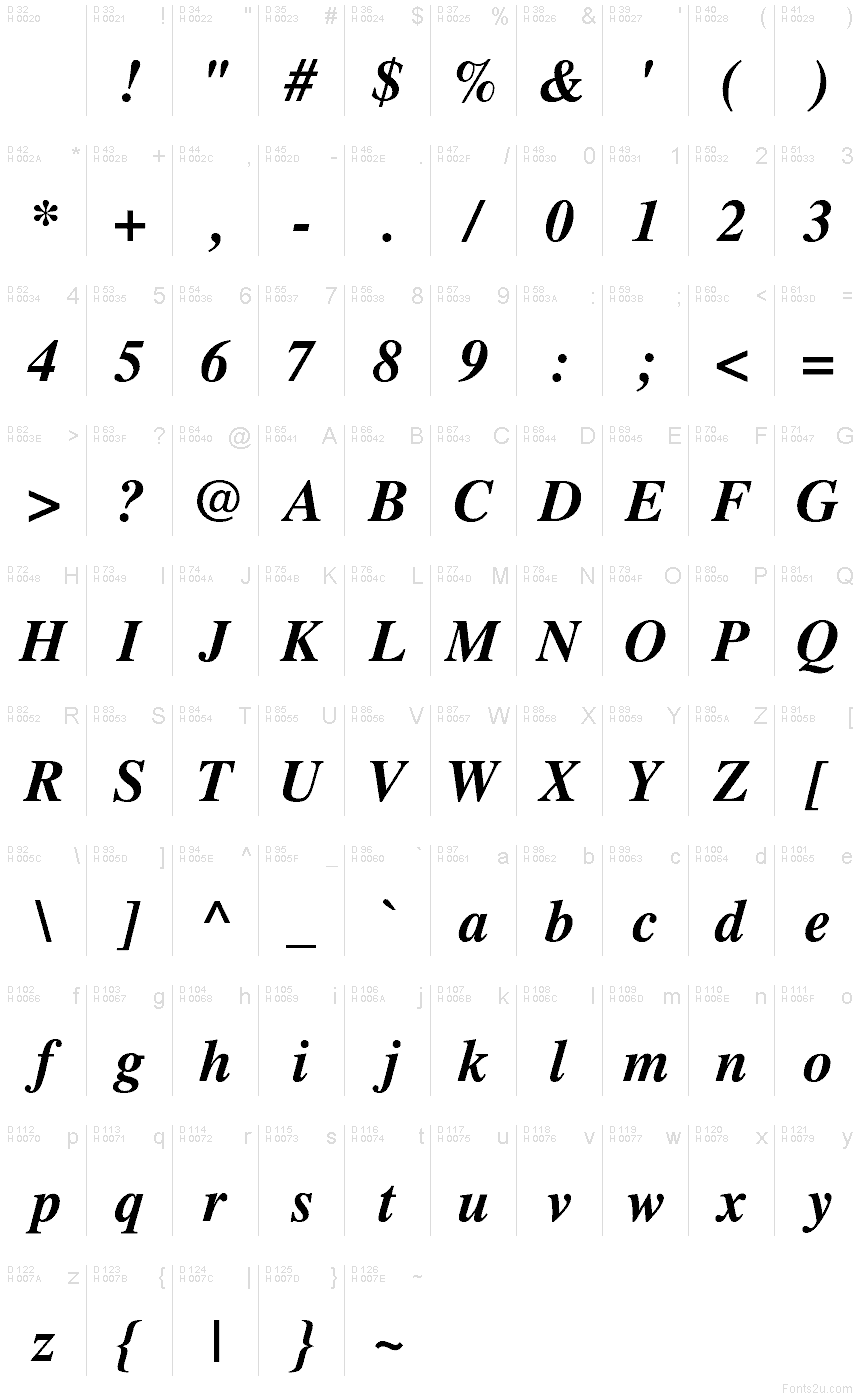
Timnath-BoldItalic
Timnath Bold Italic font is an elegant free serif font by STIX Fonts with a sophisticated, classic style. Timnath is a formal typeface that, besides its original version, is also available in italic & bold italic styles. It’s refined and easy on the eye design doesn’t just make it legible but stunningly attractive too.
Use Timnath for designing quality logos, branding materials like business cards or modern prints. Get a beautiful combination of main content text with titles or headings in newspapers by pairing them. You can also use them independently to typography on posters, magazines, books & book covers as well as signage and websites.
Arie de Ruiter, who in 1995 was Head of Information Technology Development at Elsevier Science, made a proposal to the STI Pub group, an informal group of publishers consisting of representatives from the American Chemical Society (ACS), American Institute of Physics (AIP), American Mathematical Society (AMS), American Physical Society (APS), Elsevier, and Institute of Electrical and Electronics Engineers (IEEE). De Ruiter encouraged the members to consider development of a series of Web fonts, which he proposed should be called the Scientific and Technical Information eXchange, or STIX, Fonts. All STI Pub member organizations enthusiastically endorsed this proposal, and the STI Pub group agreed to embark on what has become a twelve-year project. The goal of the project was to identify all alphabetic, symbolic, and other special characters used in any facet of scientific publishing and to create a set of Unicode-based fonts that would be distributed free to every scientist, student, and other interested party worldwide. The fonts would be consistent with the emerging Unicode standard, and would permit universal representation of every character. With the release of the STIX fonts, de Ruiter's vision has been realized.